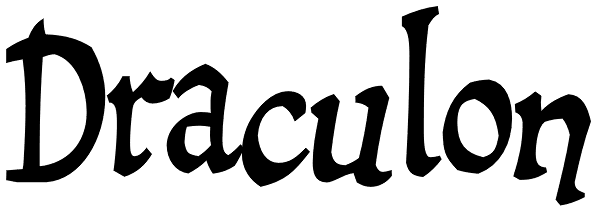
Draculon
Draculon is an animated casual inspired by the letterforms of William Orcutt’s Humanistic font from 1904 . . . which was in turn based on an Italian manuscript from 1485. The subject of the manuscript was probably something about vampires and...